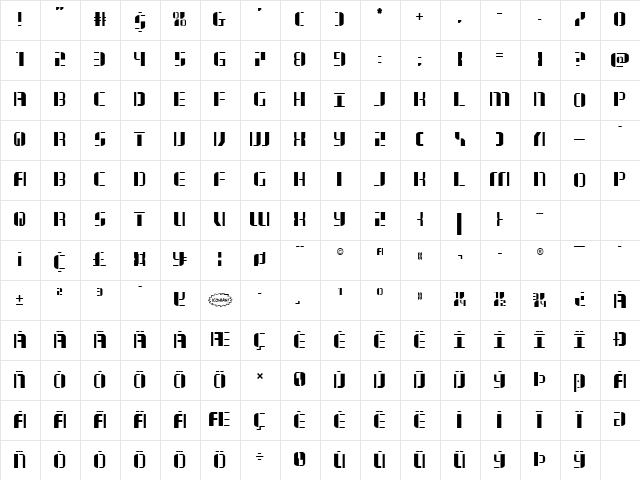
Jetway Regular
Design Context for Jetway
Jetway is a composed and adaptable typeface that performs quietly and consistently across a wide range of design contexts.
Pro Tip: Use Jetway in both headline and body roles to test its range before committing to a single application.